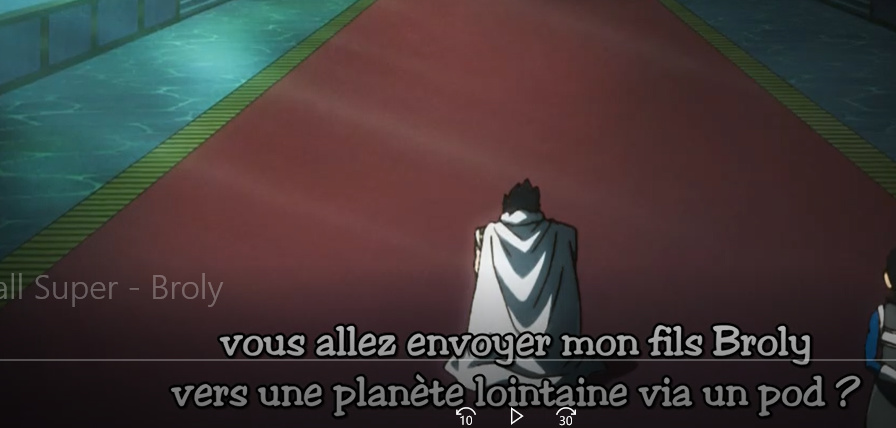
Some can help me to identify the font attached?
I call that the “Harris Teeter font”! It’s a slightly more extended and bolder version of Apache. https://www.fonts.com/font/urw/apache/regular